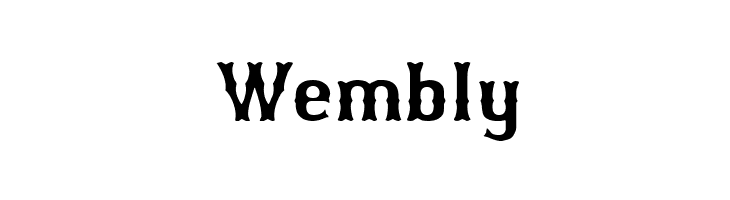
Tagettes Font
- Font: Tagettes
( Fonts by Rich Gast - www.greywolfwebworks.com Commercial Fonts Font )
A bold, vintage-style serif font with dramatic strokes and strong presence.